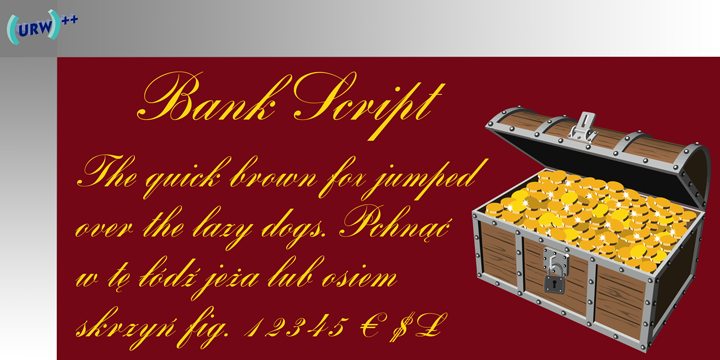
Bank Script Font is perfect for financial institution branding, formal business correspondence, legal document headers, premium certificate design, executive signature lines, corporate award presentations, professional letterheads, upscale bank marketing materials, formal invitation design, and distinguished corporate communications. Its professional script character makes it ideal for projects requiring formal elegance and institutional credibility.
What makes Bank Script Font exciting is its perfect balance of formal authority and elegant sophistication that captures the essence of traditional banking professionalism and institutional trustworthiness. The font features controlled script flourishes, consistent stroke weights, and refined letterform connections that create professional elegance and corporate credibility. Its authoritative personality conveys reliability and established tradition, making it essential for financial institutions and businesses that prioritize formal presentation and professional distinction. The carefully balanced script elements ensure exceptional legibility while maintaining the distinguished character that elevates corporate communications to executive-level presentation standards.
Bank Script Font comes in multiple professional variations including Regular, Bold, Light, Condensed, and Formal styles. Each family member preserves the signature authoritative script character while offering comprehensive flexibility for hierarchical corporate typography and institutional brand system development. The complete font family includes stylistic alternates, professional ligatures, and formal punctuation marks that enhance the distinguished aesthetic and corporate presentation quality.
Whether you're developing financial brands, corporate communications, or professional services, Bank Script Font Free Download provides the formal elegance needed to communicate with sophisticated business audiences and institutional stakeholders. The font's professional appeal resonates with executives and decision-makers seeking trustworthy presentation and established credibility. Its comprehensive character set includes financial symbols and corporate punctuation marks, making it perfect for creating complete institutional brand systems and memorable professional storytelling across diverse financial applications and formal business communications.